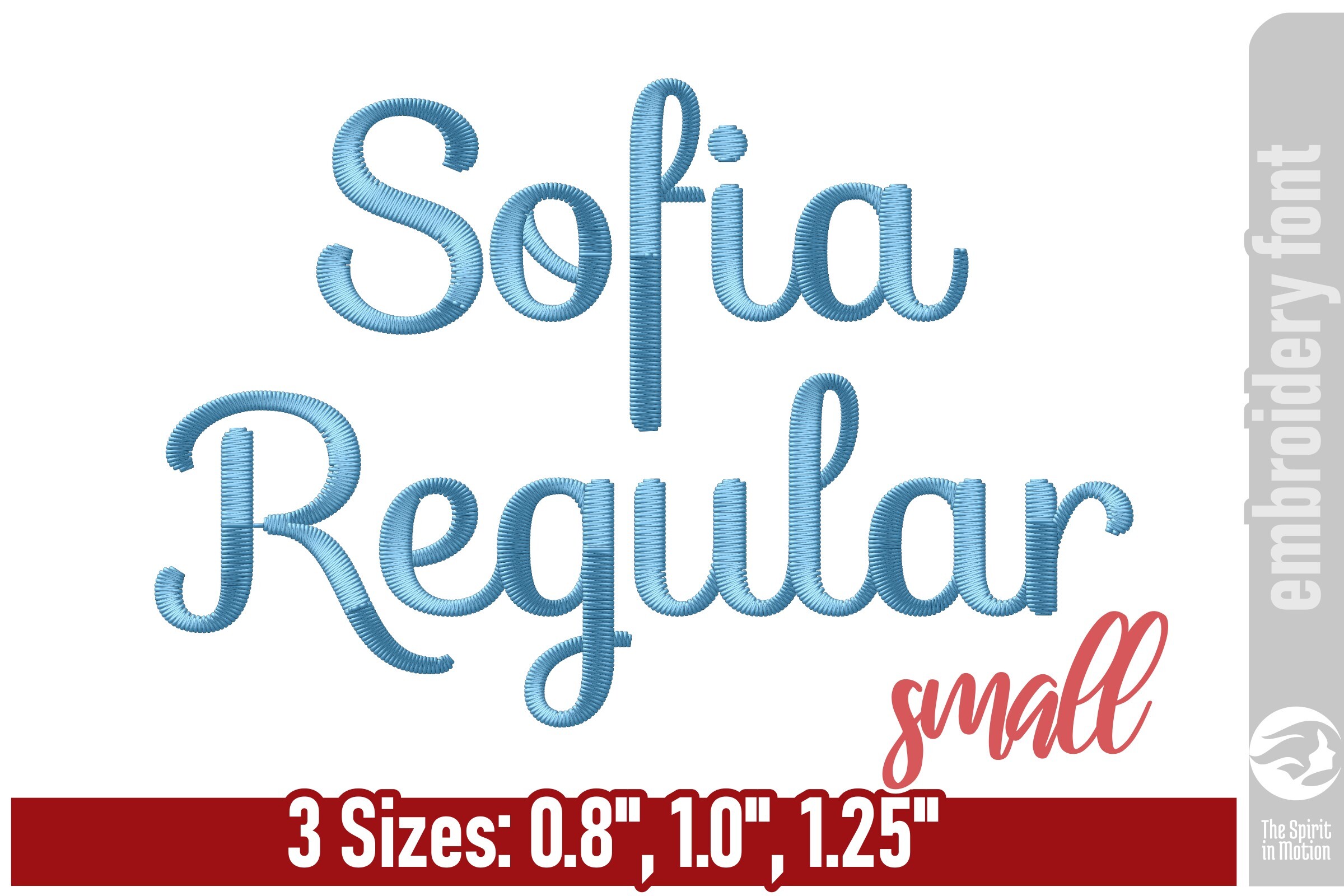
Sofia Regular Embroidery Font - Small
Add a touch of playful charm to your embroidery projects with this cheerful, handwritten-style font. Its smooth, rounded letters bring a fun and friendly feel to clothing, accessories, home décor, and more. Perfect for adding a whimsical touch to names, quotes, or lighthearted messages in your next machine embroidery design. Please note: The sizes and stitches information shown below is for “A” and “a” in each size. This is provided as a summary of what is available in this download file. For the full dimension details of the 256 letters in this set, click on the More Sewing Info (PDF) button on this page.